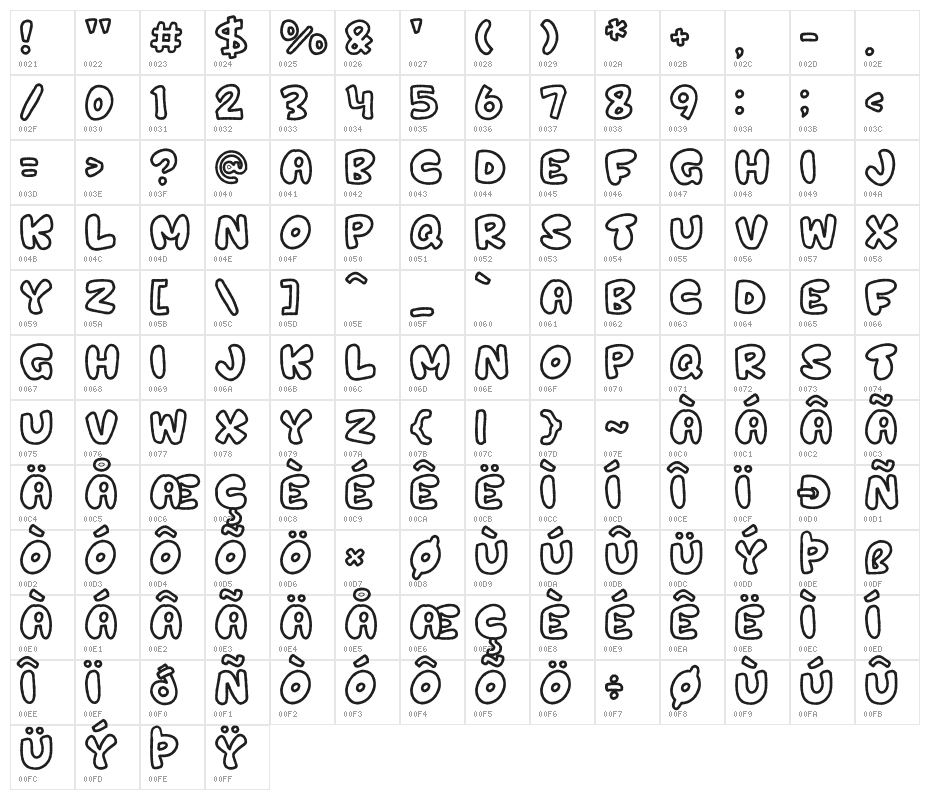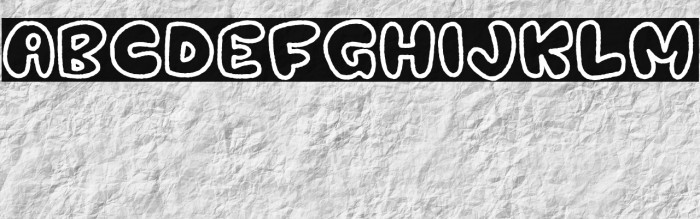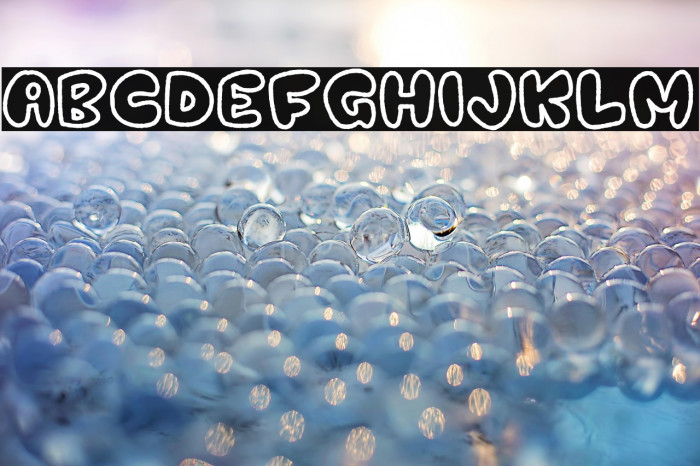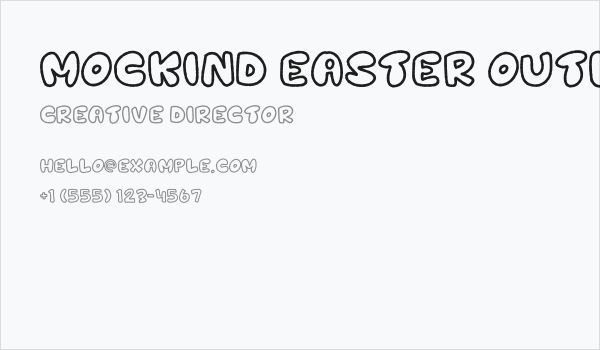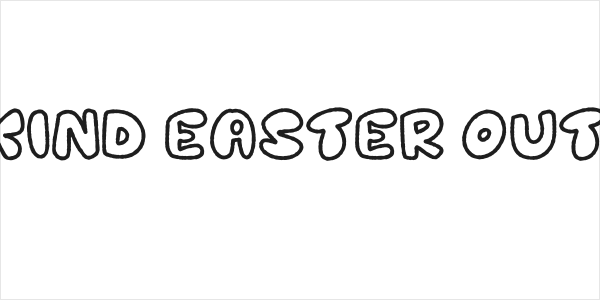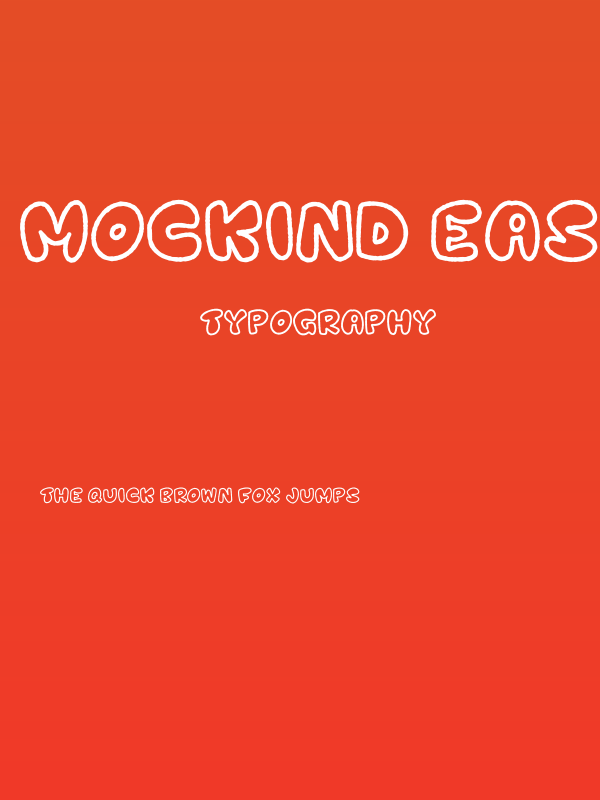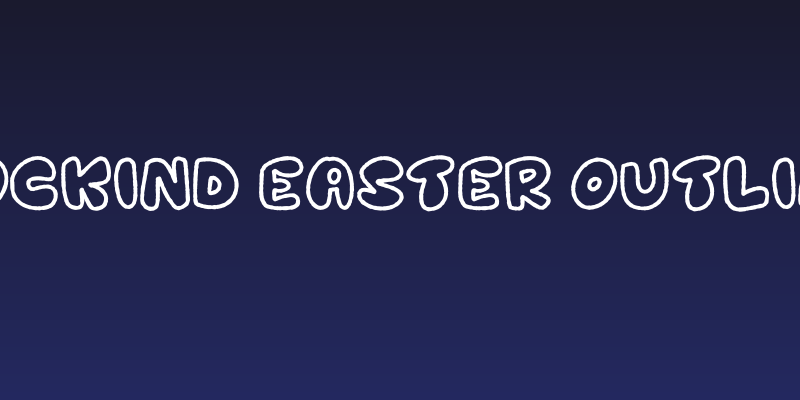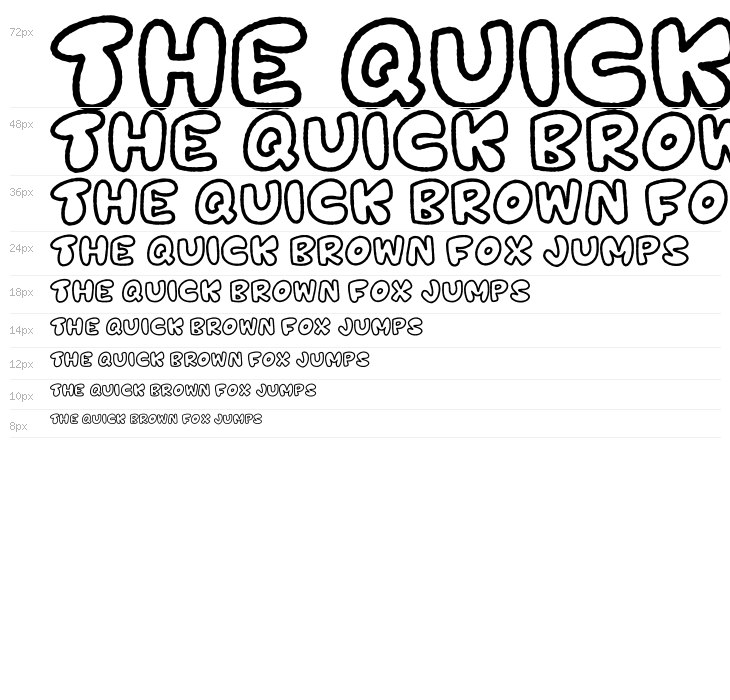
Mockind Easter Outline Font
Mockind Easter Outline Description
This playful and bold font features an outline style that gives each character a bubble-like appearance. The letters are rounded and thick, creating a friendly and approachable look. The uppercase and lowercase letters maintain a consistent style, with a slight whimsical touch that adds character to the text. The numbers and special characters follow the same design, ensuring uniformity across all elements. This font is ideal for projects that require a fun and engaging visual impact.
| Overall Style | Playful, Fun, Whimsical |
| Proposed Projects | Ideal for children's books, party invitations, playful branding, and eye-catching posters. |